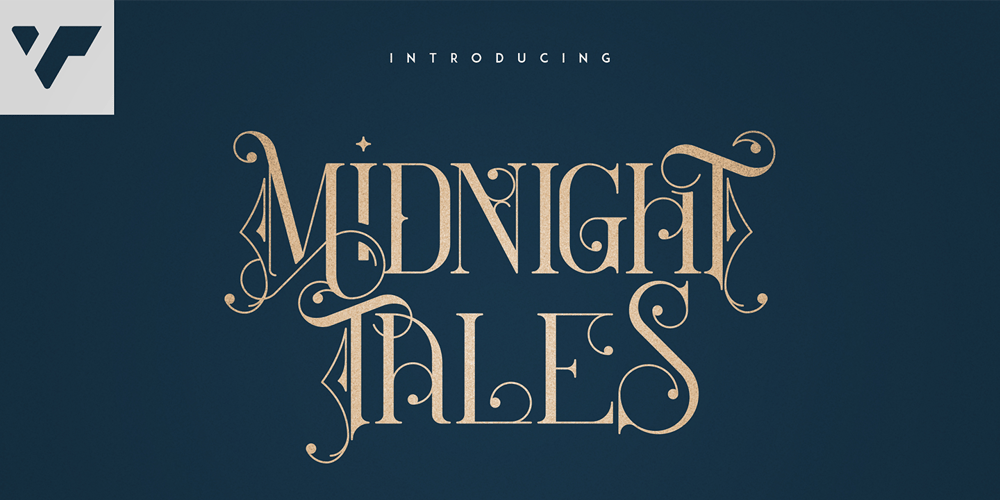
Midnight Tales Font Family was designed by Vladimir Fedotov, Plamen Petrov and published by VP Creative Shop. Midnight Tales contains 1 styles and family package options. Introducing Midnight Tales – Vintage FontMidnight Tales is vintage, elegant font with tons of alternate glyphs, ligatures and multilingual support. It’s a very versatile font that works great in large and small sizes.Midnight Tales is perfect for branding projects, home-ware designs, product packaging, magazine headers – or simply as a stylish text overlay to any background image. Uppercase, lowercase, numeral,punctuation & Symbol Alternate glyphs Ligatures Multilingual support How to access alternate glyphs?To access alternate glyphs in Adobe InDesign or Illustrator, choose Window Type & Tables GlyphsIn Photoshop, choose Window Glyphs. In the panel that opens, click the Show menu and choose Alternates for Selection. Double-click an alternate’s thumbnail to swap them out.Feel free to contact me if you have any questions!Mock ups and backgrounds used are not included.Thank you! Enjoy!